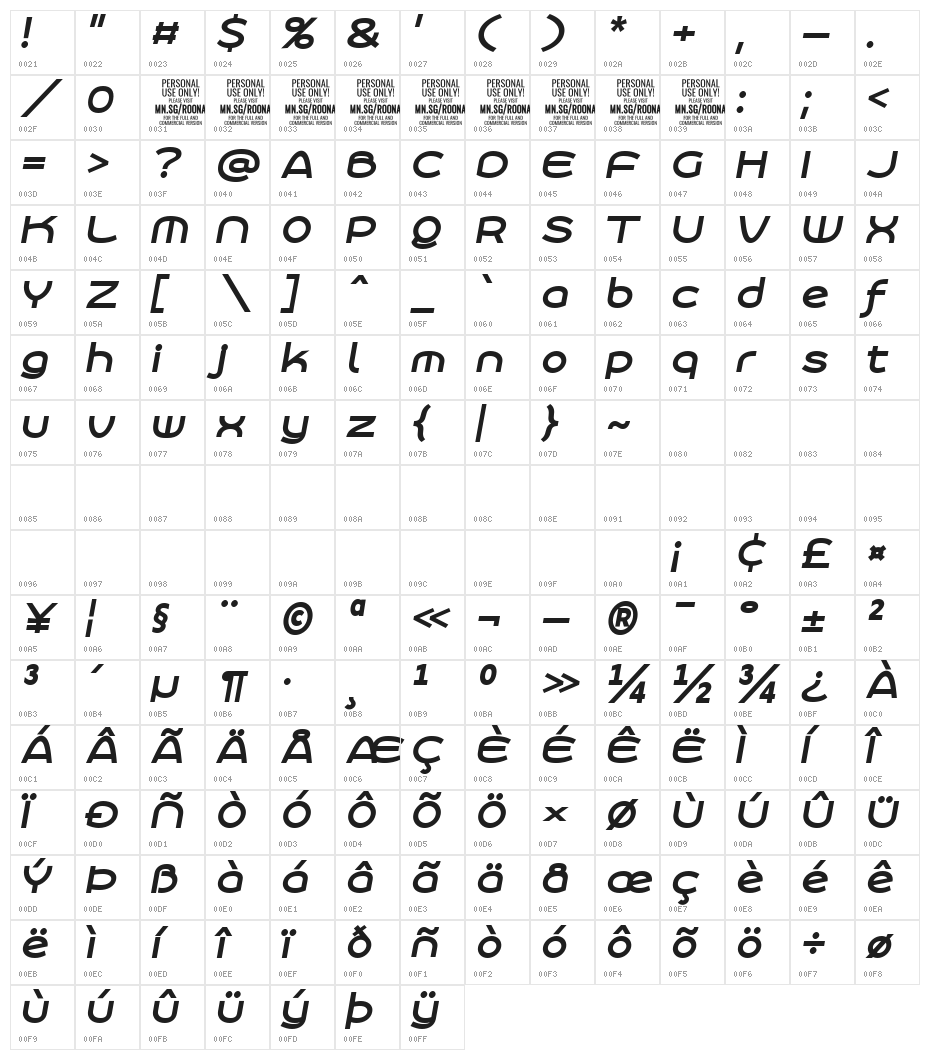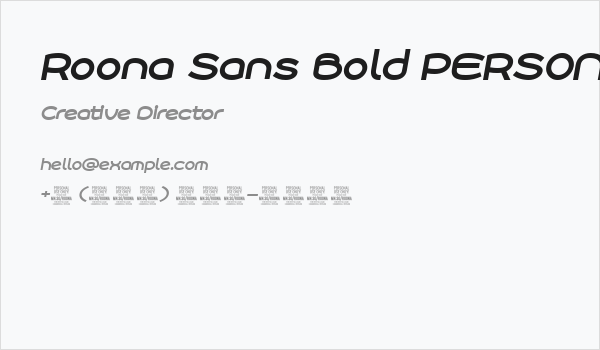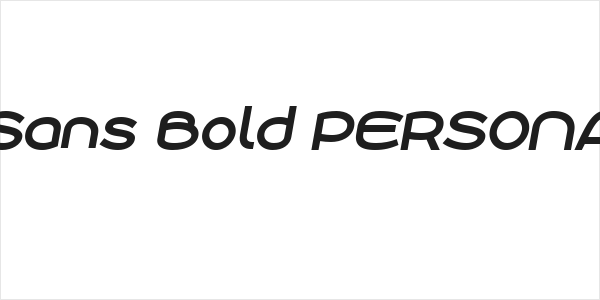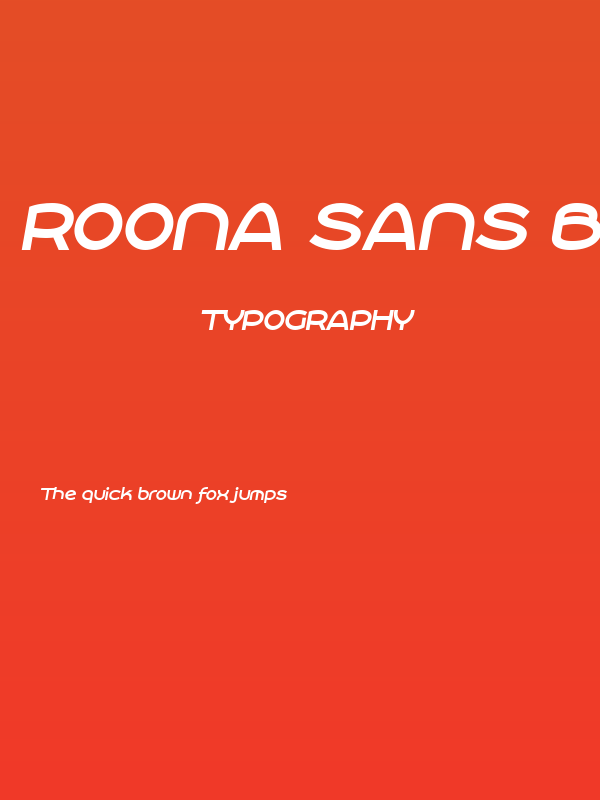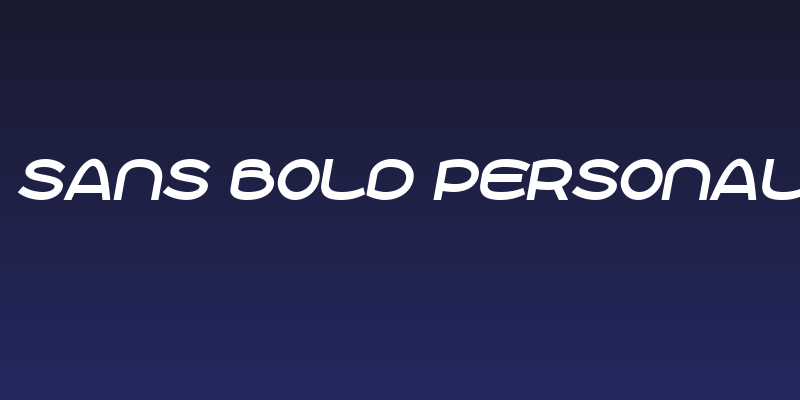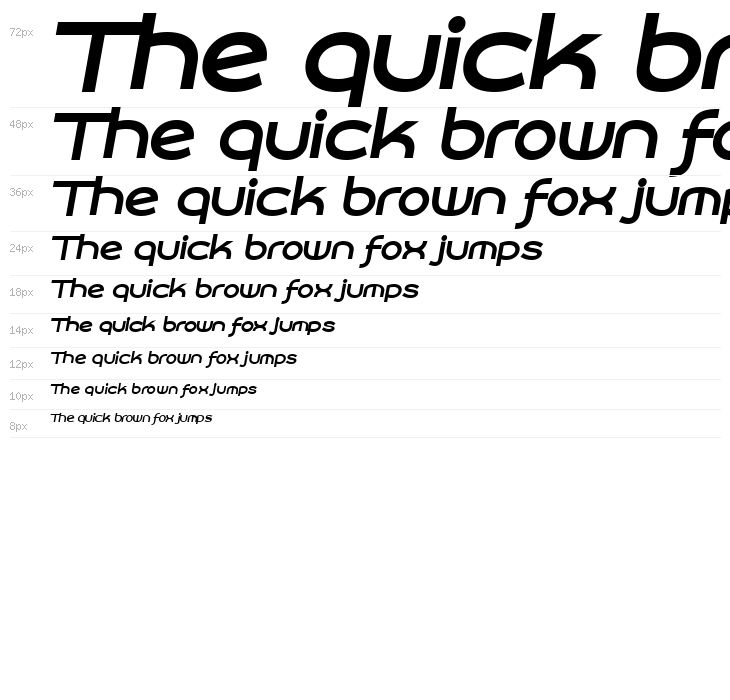
Roona Sans Bold PERSONAL Italic Font
Roona Sans Bold PERSONAL Italic Description
This font exhibits a modern and sleek design with a bold and italicized style. The characters are slightly slanted, giving a dynamic and forward-moving appearance. The strokes are consistent in thickness, providing a uniform look across all characters. The font features a geometric and futuristic aesthetic, with rounded edges and smooth curves that enhance its contemporary feel. The uppercase and lowercase letters maintain a cohesive style, while the numerals and special characters complement the overall design. This font is suitable for projects that require a modern and bold statement.
| Proposed Projects | Ideal for branding, advertising, digital media, and modern web design projects. |